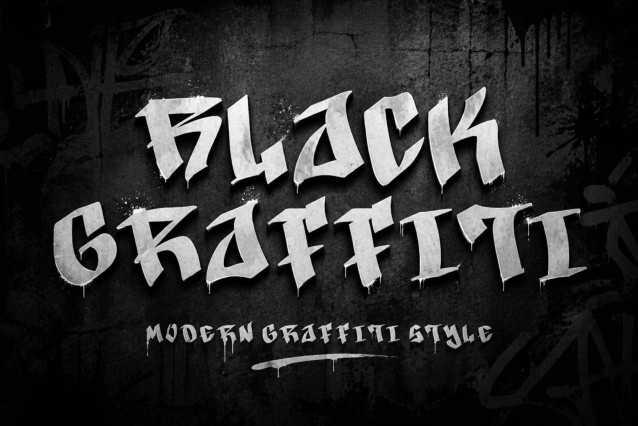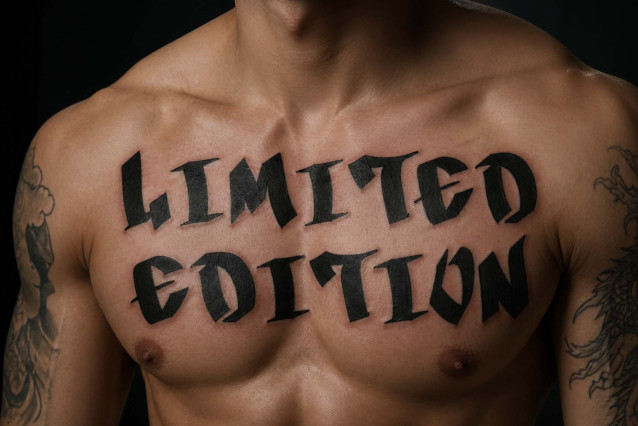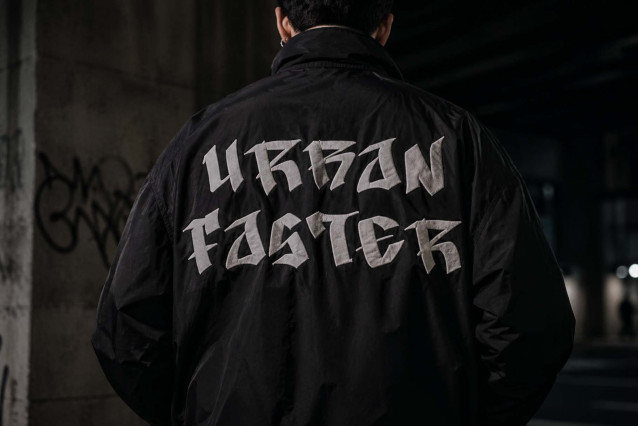
Black Graffiti Font
“Black Graffiti” is a unique and modern graffiti font. It features uppercase and lowercase letters, numbers, punctuation, and multilingual support. It’s perfect for Christmas, murals, business branding, t-shirts, winter, spring, and autumn, graffiti, urban fonts, street fonts, logos, stickers, posters, prints, banners, branding, summer logos, tattoos, movie titles, and more.